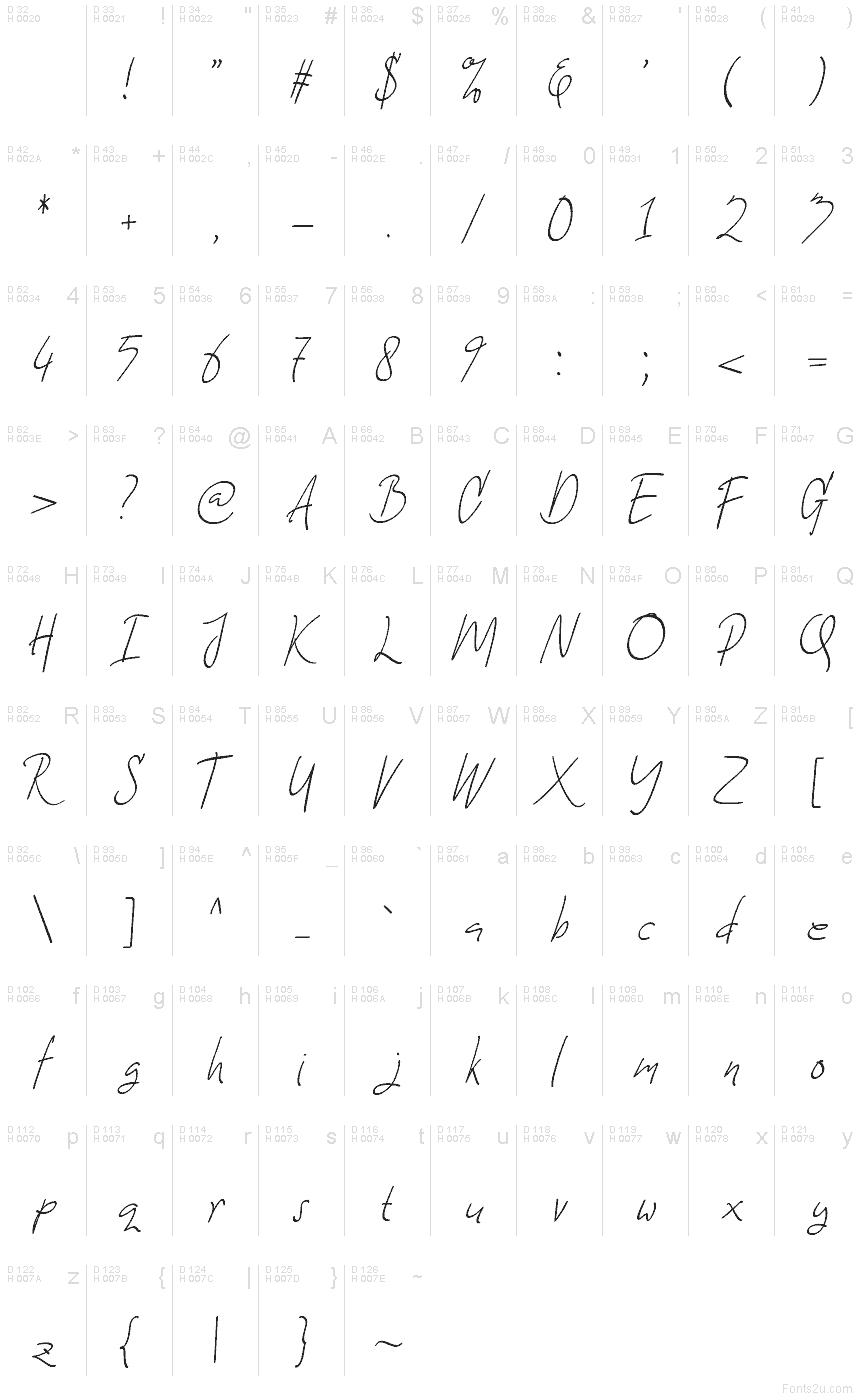
Roze Belinda Script
Roze Belinda Script font by Sign Studio is a light handwritten typeface that balances elegance with casual comfort. Its flowing aesthetic and artistic feel make it suitable for projects needing a unique touch. The font embodies an exquisite blend of modernity with vintage feelings, and its letters come in the original cursive form.
This free handwritten font is perfect for headings on personal websites, infographic design typography, wedding and invitation cards, women’s beauty magazine covers, branding typography on stationery and business cards, restaurant or jewelry packaging design, signature logos for photographers or makeup artists’ social media channels.